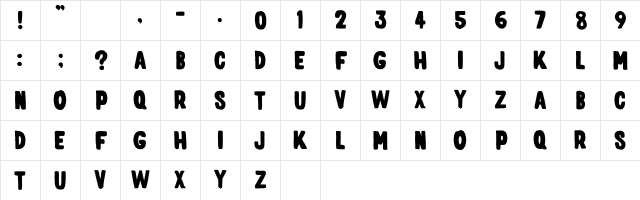
elph_chubba elph
Style: elph
Foundry: elph. manystyles crew 2005
Designer: elph
Design Context for elph_chubba
elph_chubba is a composed and adaptable typeface that performs quietly and consistently across a wide range of design contexts.